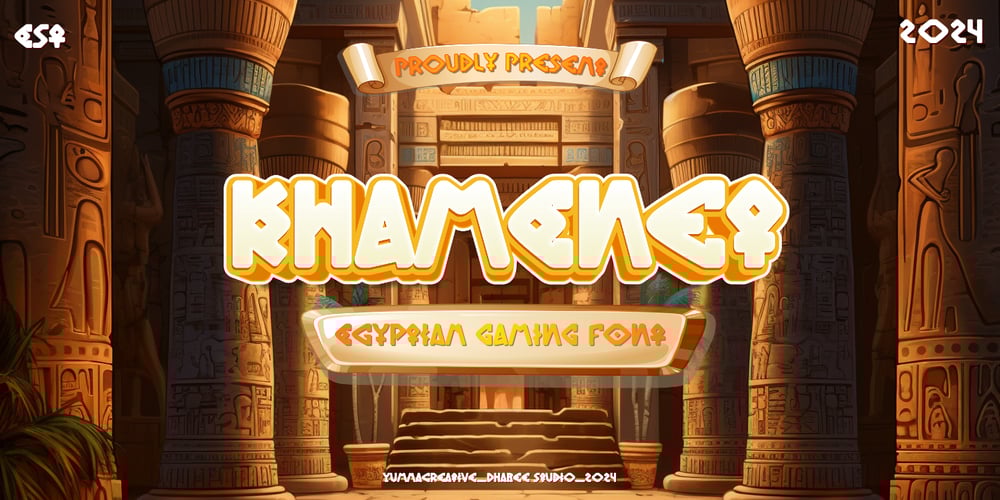
Khamenet
Khamenet font
Khamenet Font Family was designed by Dhimas Habibie and published by Yumnacreative. Khamenet contains 1 styles and family package options. Introducing Khamenet – Egyptian Gaming FontThis Font is a delicate, elegant and flowing handwritten font. It has beautiful and well as a unique blend of ligatures a letter, so that the authors compose it with a and little swirly embedding, so that a modern font is formed and ready to make a statement by adding elegant and unique flair to your next design project. Add it to your most creative ideas and notice how it makes them come alive!FEATURES- Uppercase and Lowercase letters- Numbering and Punctuations- Multilingual Supports- Works on PC or Mac- Simple Installation- Support Adobe Illustrator, Adobe Photoshop, Adobe InDesign, also works on Microsoft WordHope you Like it.Thanks.